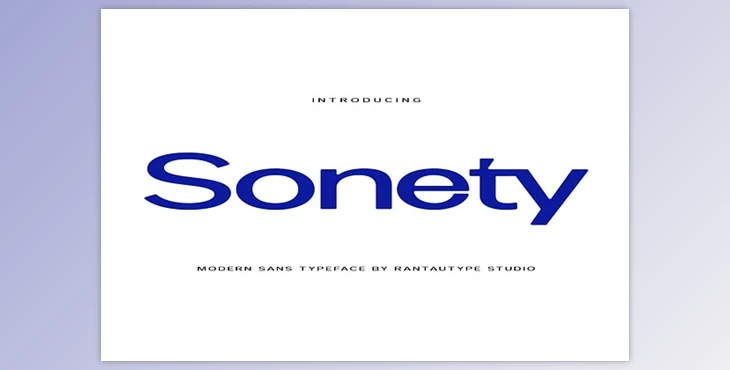
Sonety Modern Wide Sans Typeface: Introducing Sonety, a modern sans-serif typeface that embodies comprehensive geometric details and industrial design principles. With its sleek and contemporary aesthetic, Sonety is the perfect choice for elevating any creative endeavor, adding chic and eye-catching appeal to a wide range of design projects.
How can we create modern magazine titles?
You can use "Sonety Modern Wide Sans Typeface."
This versatile font is ideal for logos, advertisements, watermarking photography, stationery, branding projects, displays, magazines, invitations, corporate branding, product design, labels, business projects, and more, especially those with an industrial touch.
"Sonety Modern Wide Sans Typeface" Samples:
With multilingual character support for over 60 languages, including Afrikaans, Dutch, English, Italian, Portuguese, Spanish, Swahili, Swedish, and German, Sonety caters to diverse global audiences, making it a valuable asset for designers worldwide.
Transform your designs with Sonety and experience its modern sophistication and industrial-inspired elegance that captivates and engages audiences across various creative projects.